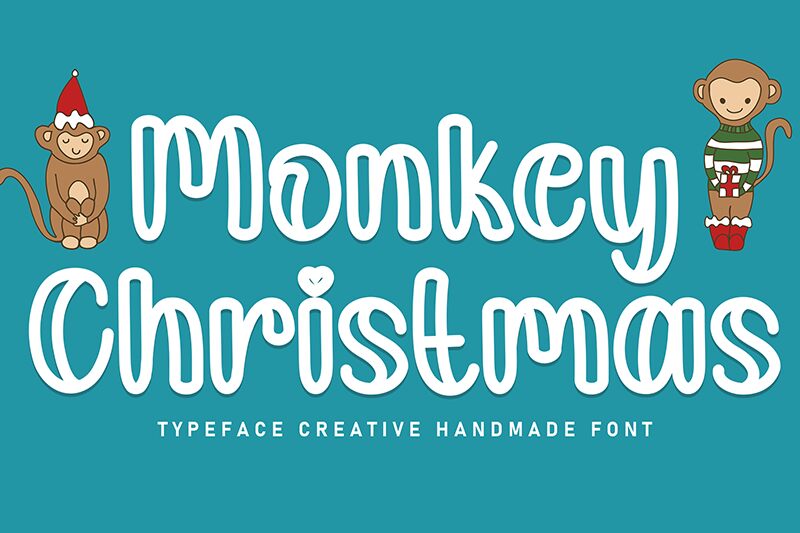
Monkey Christmas
Monkey Christmas font by Andi Moz is a free outlined brush font. Built around chunky, inky loops with a steady monoline feel, it wraps each stroke in a crisp outline that reads like piped icing—playful, legible, and a little bit cheeky. The rounded terminals and buoyant rhythm create a friendly sway that holds together in both big headlines and medium captions.
Using Monkey Christmas, your seasonal cards, gift tags, kids’ posters, bakery packaging, social promos, and craft projects gain instant warmth and bounce. The sturdy outline keeps letters clear on busy backgrounds, while the generous counters make stacked lines easy to scan. Pair with a clean geometric sans for body copy, and let this free font take the headline at larger sizes for maximum charm.